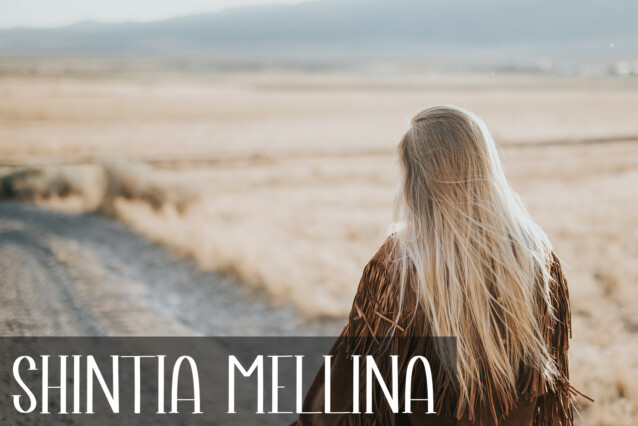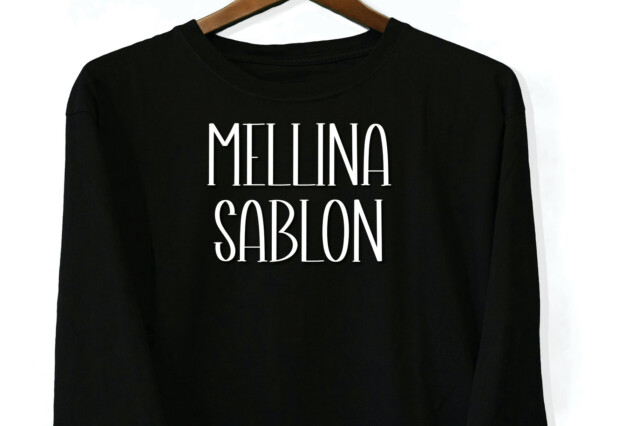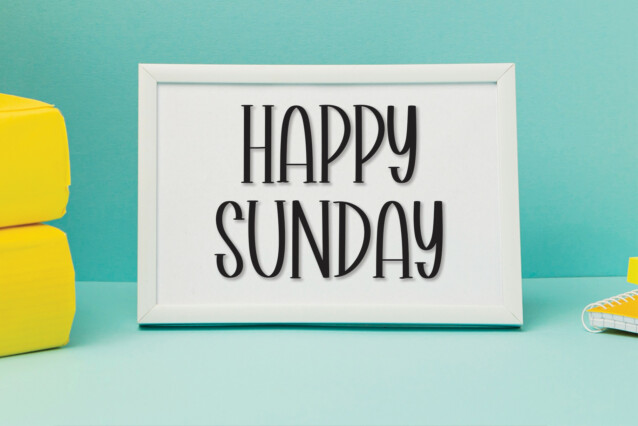
Moment December Display Font
Moment December Display Font is a cool and relaxed handwritten font. This versatile font has a wide spectrum of applications ranging from greeting cards to headlines and is guaranteed to add a neat and natural feel to your next project!